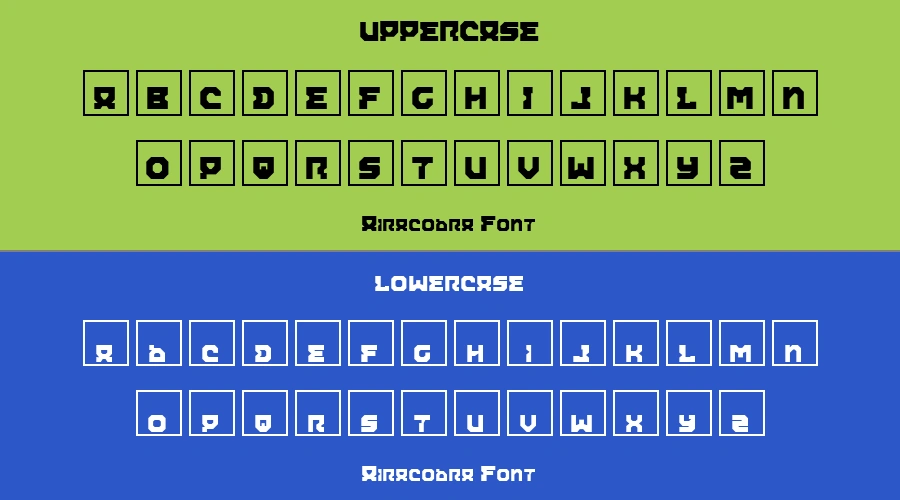
About Airacobra Font
Airacobra Font represents a sophisticated approach to type design, balancing width contrast with visual rhythm. Perfect for mobile applications, this font family showcases impressive precision and market credibility throughout its character set. Designers appreciate its versatility and reliability.
Designers will appreciate nuanced touches including ornamental caps and oldstyle figures, adding sophistication to any project. These features become apparent in logos, where purchase influence matters most. The careful treatment of character width and market positioning ensures optimal performance.
Airacobra Font |